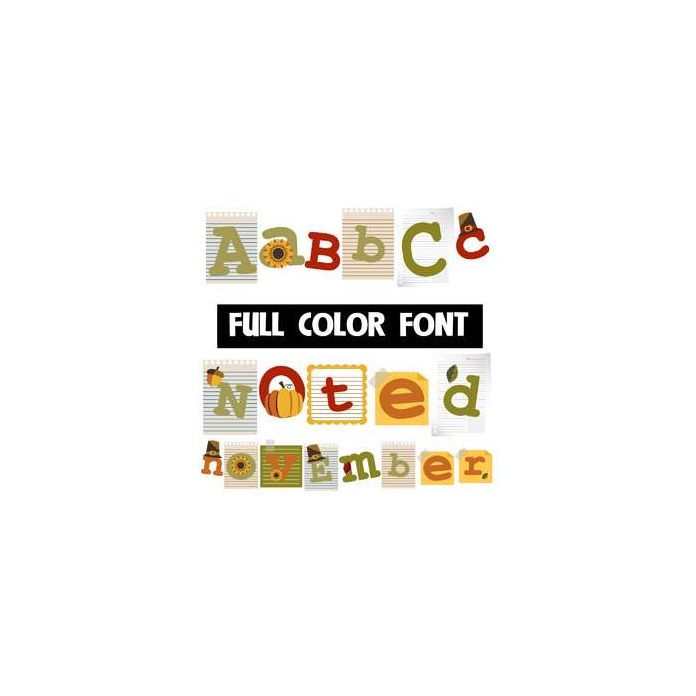
This full-color font features a slab serif with mismatched sizing on notes. . This font works best for titles, displays, posters and more. Please note color fonts will show as black in non compatible programs. This font type is compatible with Silhouette Studio.